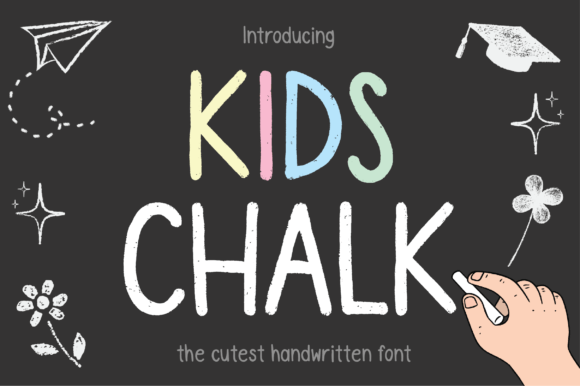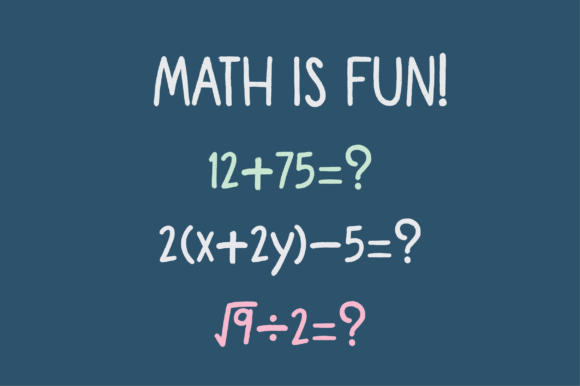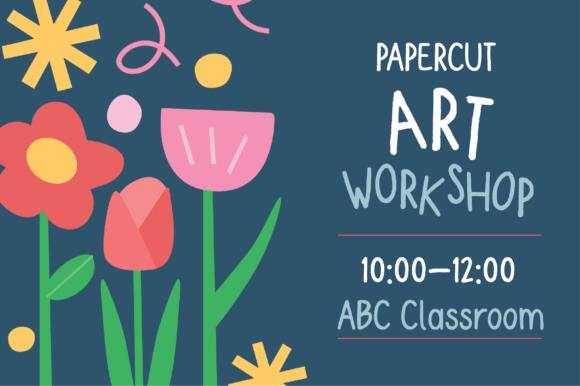
Unlocking the Magic of Childhood Creativity
Do you remember the feeling of creating something with a box of colorful chalk on a sunny day? The smell of fresh pavement, the sound of laughter, and the joy of bringing your imagination to life? For many of us, these carefree moments are the foundation of our creativity and love for art. As we grow older, we often forget the importance of embracing our playful side, but what if we told you there’s a way to tap into that magic again?
Introducing the Kids Chalk Font, a delightful and whimsical font that’s perfect for bringing a touch of childhood wonder to your designs. This charming font is designed to mimic the handwriting of a child, making it ideal for teachers and children alike. Its playful nature and creative possibilities make it a valuable asset for designers looking to add a personal touch to their projects, from menus and worksheets to cards and more.
Kids Chalk Font Key Features
- Unique Hand-Drawn Style: The Kids Chalk Font features a distinctive hand-drawn style that resembles chalkboard writing, perfect for adding a playful touch to designs.
- Characters and Symbols: The font includes a comprehensive set of characters, including uppercase and lowercase letters, numbers, and a variety of symbols and punctuation marks.
Designer Review: Kids Chalk Font
Overall, I think the Kids Chalk Font is a fun and playful addition to any design project. It’s perfect for creating a whimsical and child-friendly atmosphere, and I love how it adds a touch of nostalgia to designs. ✨
One of the things that stands out about this font is its versatility. It’s available in a range of weights, from light to bold, which makes it easy to use in a variety of contexts. The font also includes a range of swashes and flourishes, which can add a touch of personality to designs. ✨
However, there are a few limitations to consider. For example, the font may not be the best choice for formal or professional designs, as it can come across as a bit too playful. Additionally, the font’s character set may not include some of the more specialized characters that designers often need. ⚠️
- Works well for: Children’s products, educational materials, party invitations, and other playful designs.
- Not ideal for: Formal or professional designs, as it may come across as too playful.
- Considerations: Character set may not include some specialized characters.
Overall, I think the Kids Chalk Font is a great choice for designers who want to add a touch of whimsy to their designs. While it may not be the best choice for every project, it’s definitely worth considering for those that require a playful and child-friendly atmosphere.
The Kids Chalk Font is commonly used for:
- Designing educational materials, such as worksheets and posters.
- Creating invitations and party decorations for kids’ birthday parties.
- Adding a playful touch to business presentations and marketing materials.